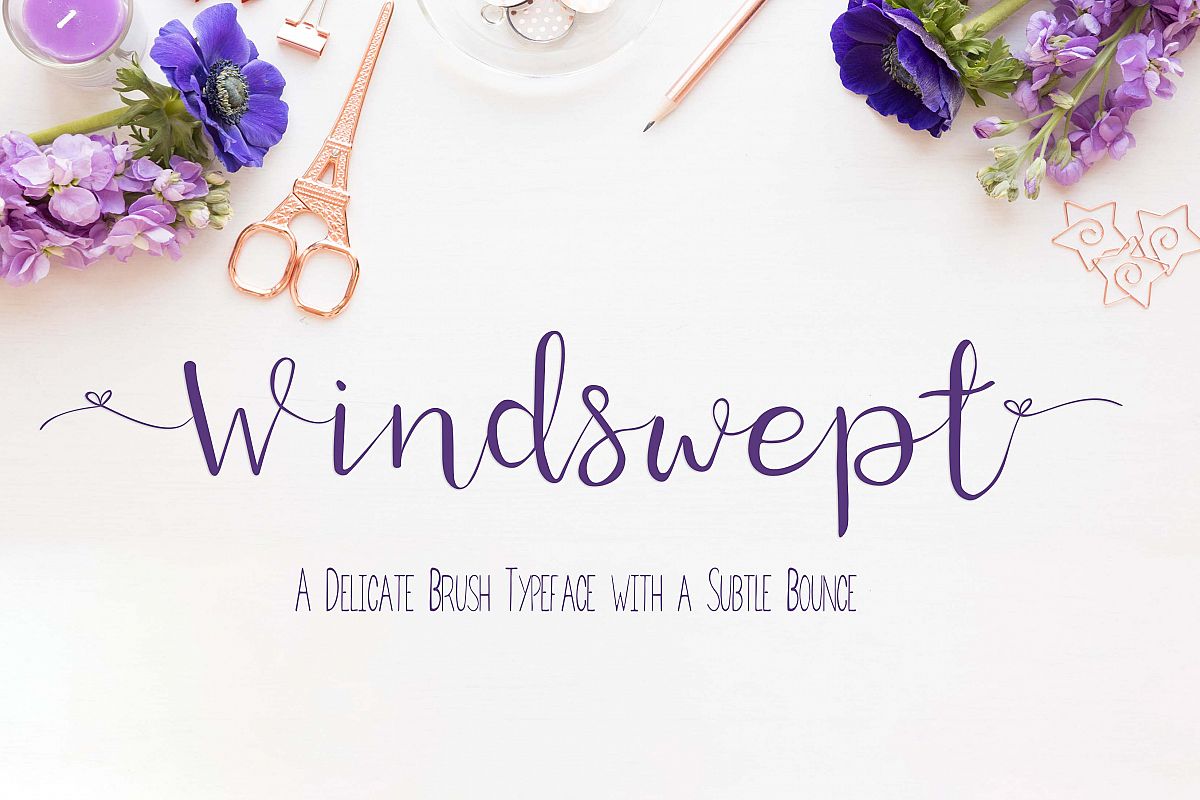
Windswept, a Brush script font
A delicate brush font with a subtle bounce suitable for quotes, wedding
stationary, branding and more. It includes 5 beginning and end swashes